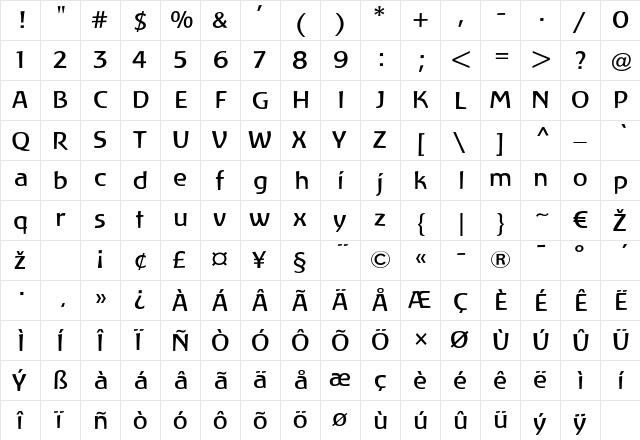
LTAtlantis Regular
| Designer | Lutz Baar |
Design Context for LTAtlantis Typeface
LTAtlantis offers clean, dependable letterforms without strong stylistic allegiance, making it a practical choice for designers who need flexibility.